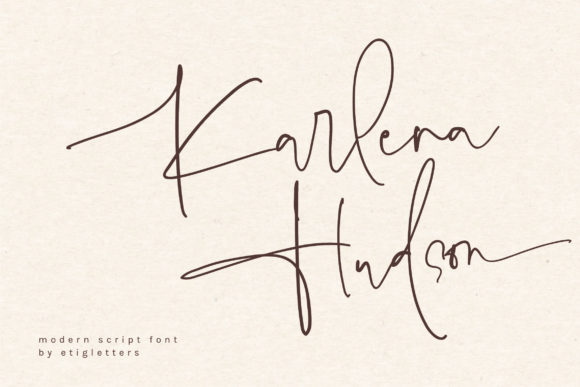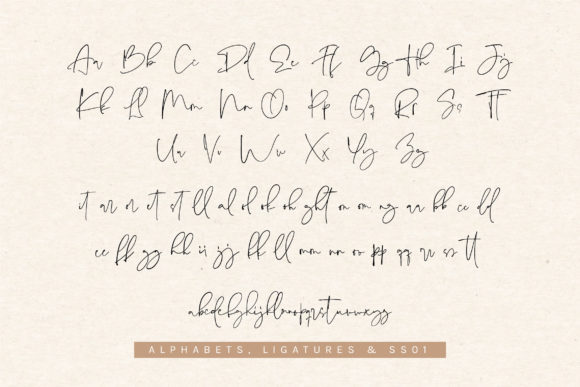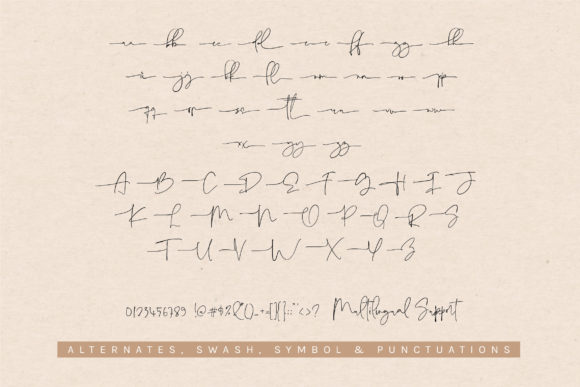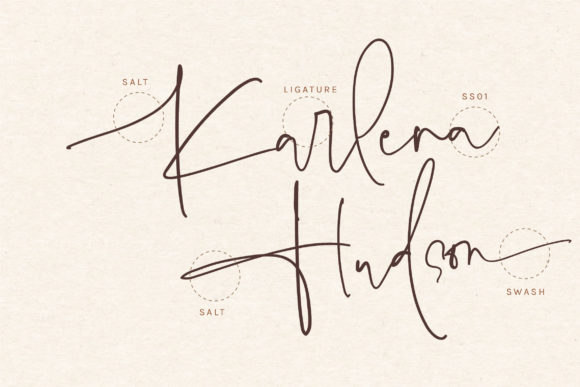
About Karlena Hudson Font
Karlena Hudson is a delicate and elegant handwritten font. Its distinct and well rounded letters make this font a masterpiece. Fall in love with its incredibly versatile style and use it to create spectacular designs!